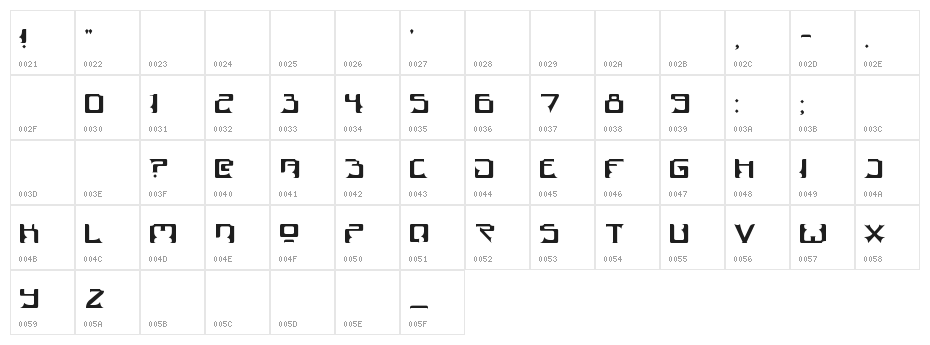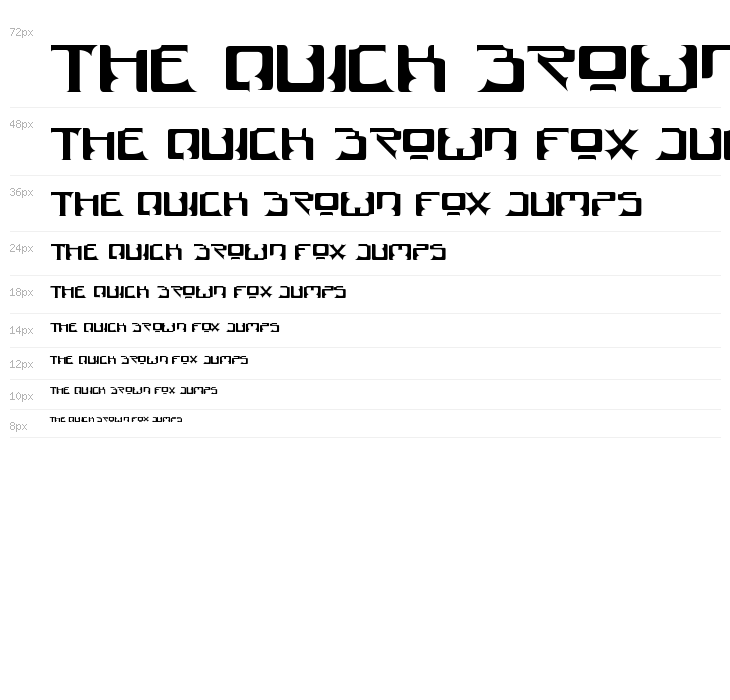
Dogma Font
Dogma Description
This font features a bold and striking design with sharp, angular edges and a futuristic aesthetic. The characters are uniquely crafted with a combination of thick and thin strokes, creating a dynamic and eye-catching appearance. The uppercase letters are particularly distinctive, with geometric shapes and cut-out sections that add to the modern feel. The lowercase letters maintain a consistent style, ensuring readability while still offering a unique flair. Numbers and special characters are designed to match the overall theme, providing a cohesive look across all elements. This font is ideal for projects that require a bold statement and a modern, edgy vibe.
| Overall Style | Futuristic, Edgy |
| Proposed Projects | Ideal for sci-fi themed projects, video game titles, tech branding, and modern posters. |